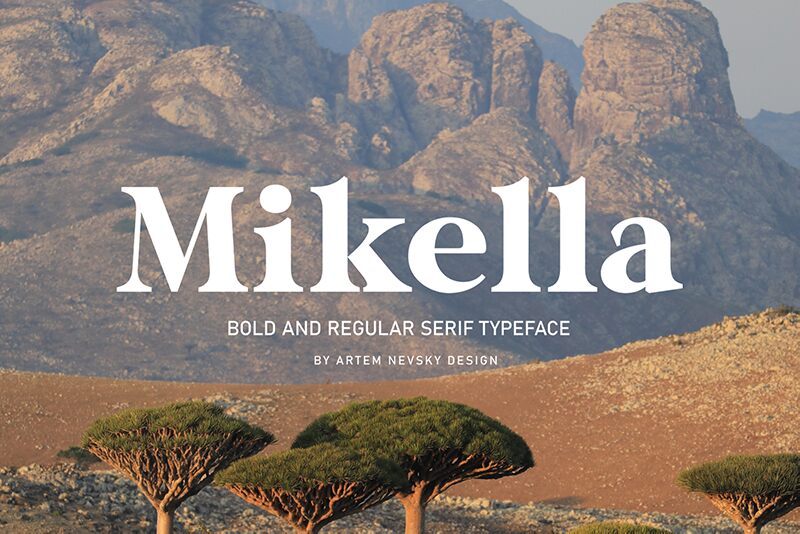
NT Mikella Bold is a stunning serif font designed by the talented Artem Nevsky. Its extra-bold weight and semi-expanded width make it perfect for adding a touch of elegance and sophistication to any project. Whether you're designing a luxurious brand logo or creating an eye-catching brochure, NT Mikella Bold will deliver an exceptional visual impact. Its classic and timeless design is suitable for various types of projects such as editorial layouts, wedding invitations, product packaging, and much more. With its sleek lines and sharp edges, this font will elevate any design to new heights that are sure to impress your audience.